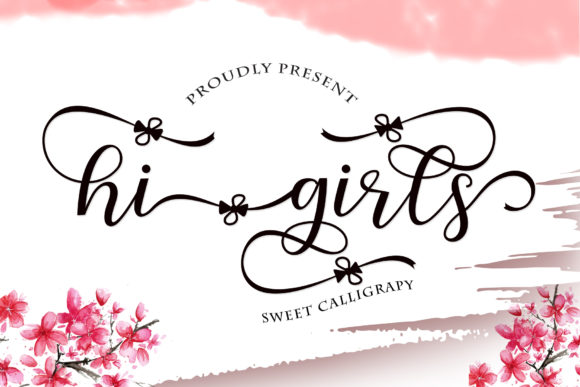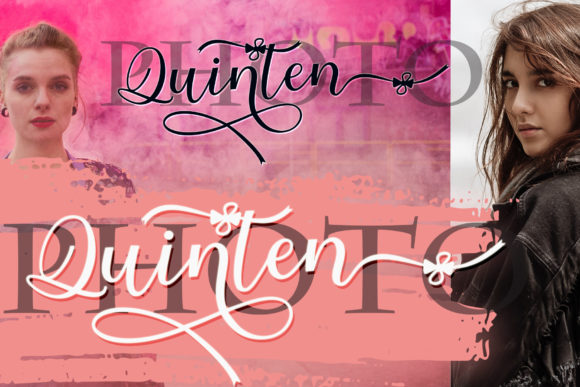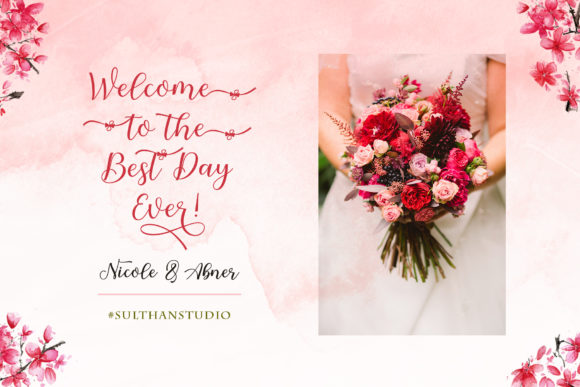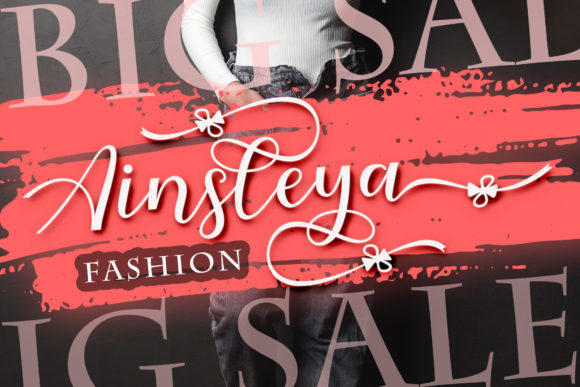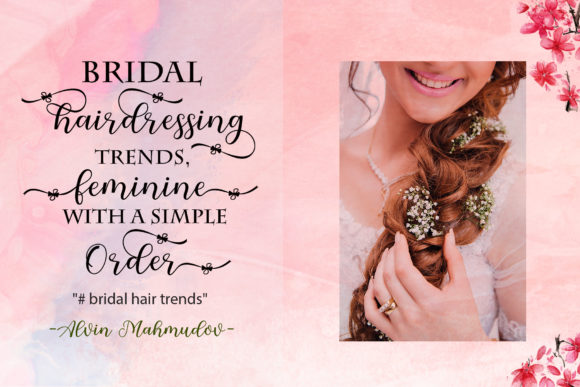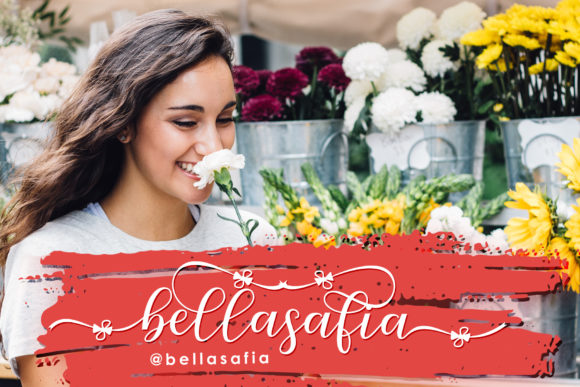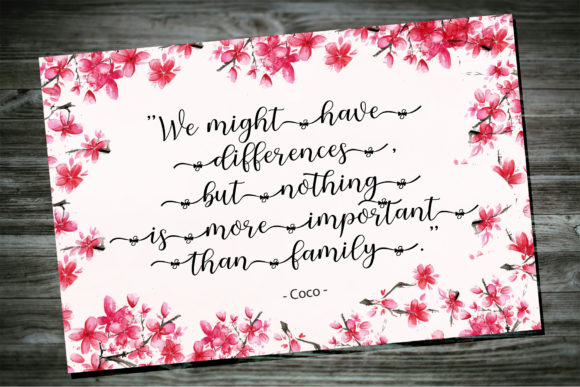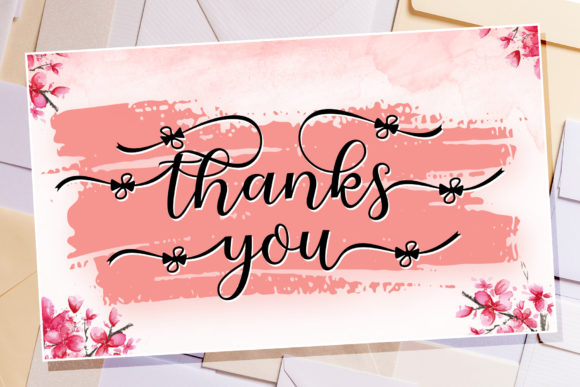
About Hi Girls Font
Hi girls simplifies elegance into one truly outstanding handwritten font. This font is PUA encoded which means you can access all of the amazing glyphs and swashes with ease!